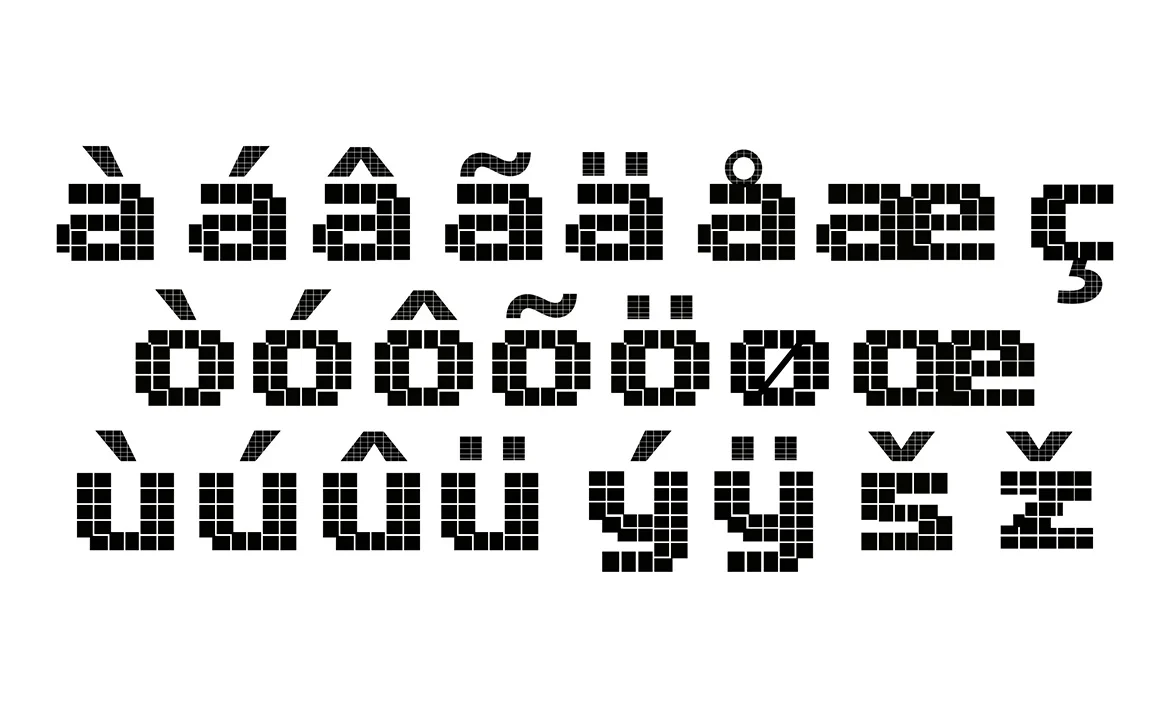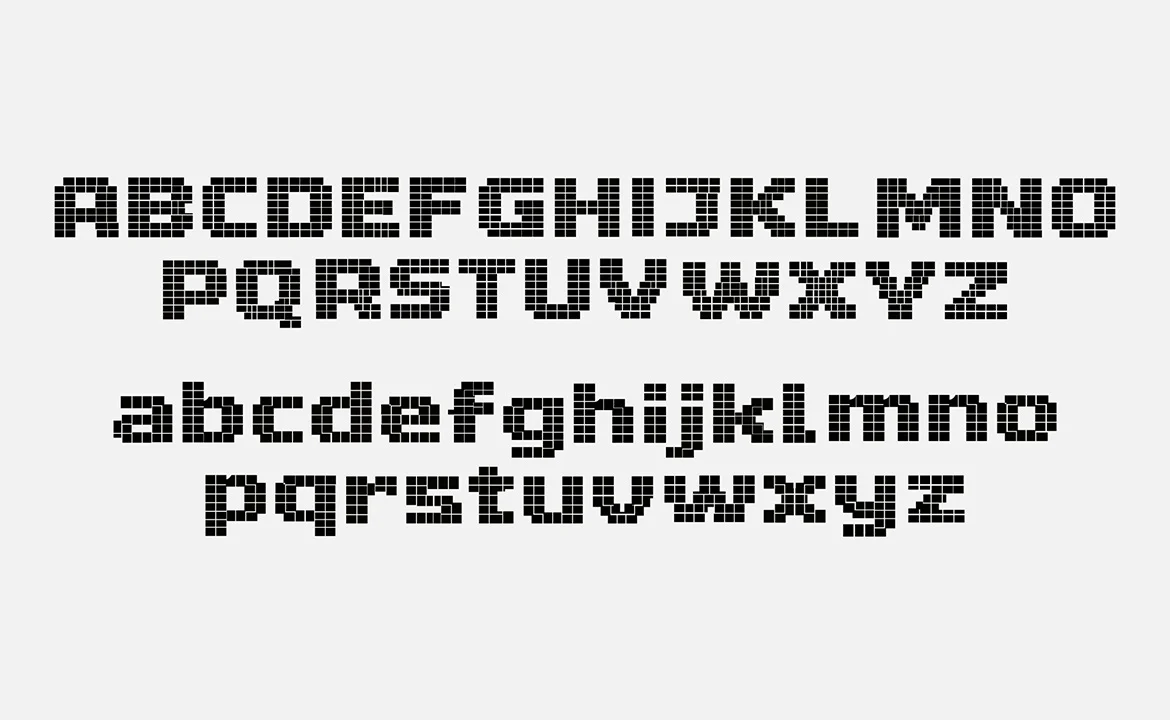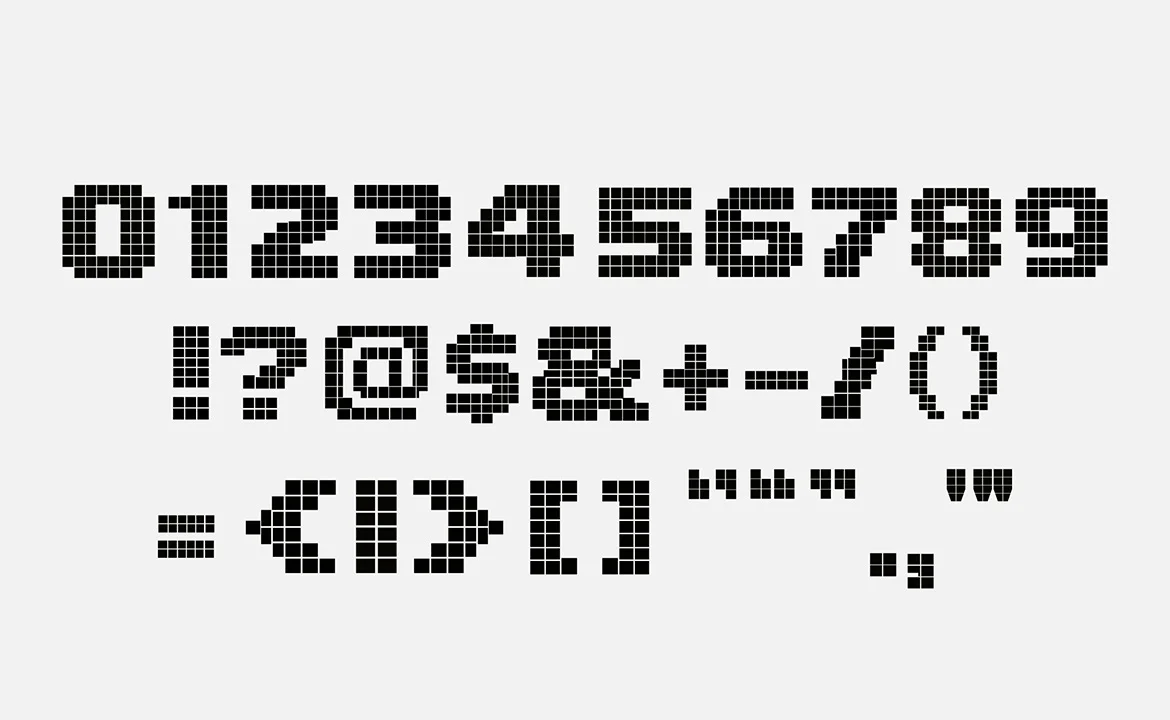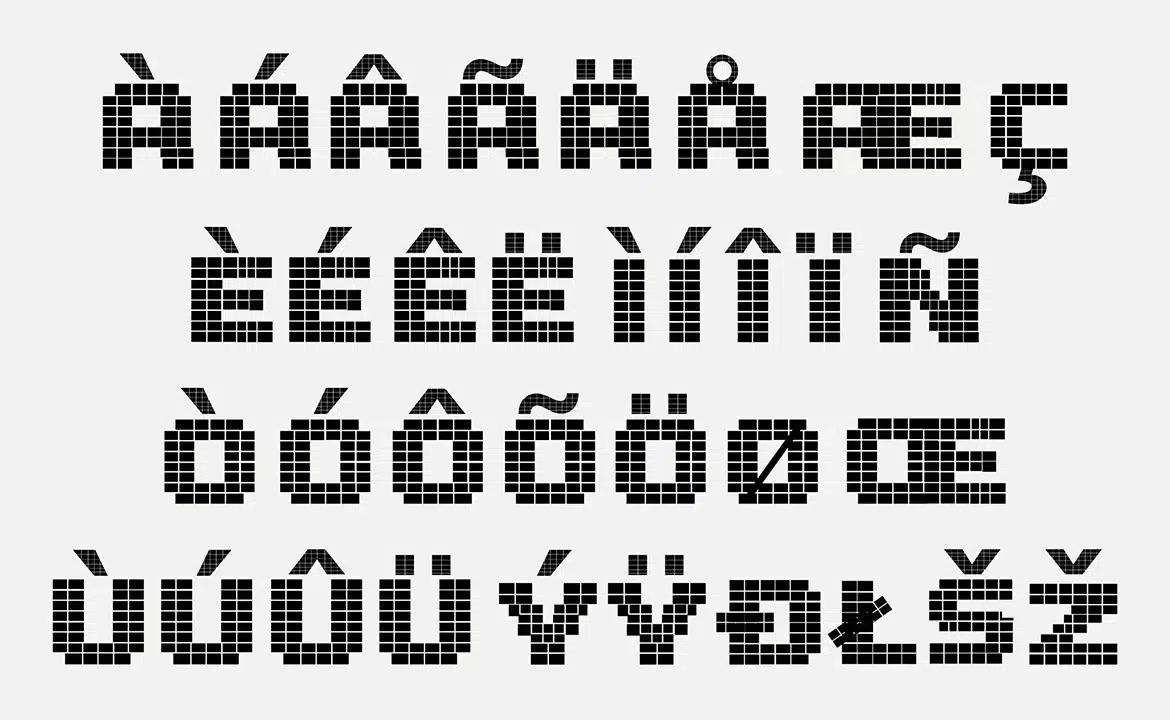
Dot Monolith Brutal Font
Dot Monolith Brutal
Dot Monolith Brutal – Pixel Grid Display Font is a bold modular display font built on a structured pixel grid system. Inspired by raw Brutalism aesthetics, it delivers a strong, industrial, and futuristic look with sharp geometric forms and high visual impact.
Perfect for streetwear branding, tech UI, posters, gaming visuals, and experimental design projects.